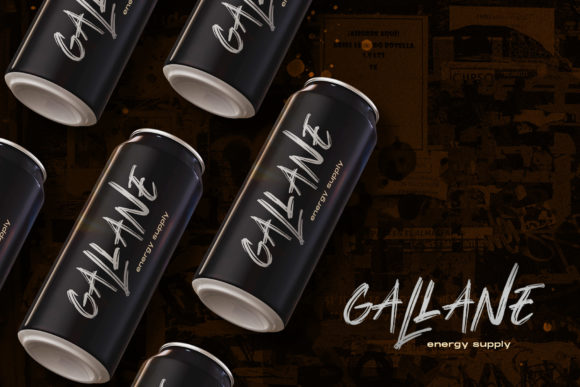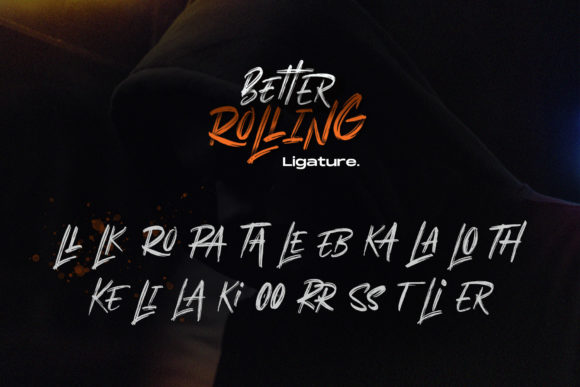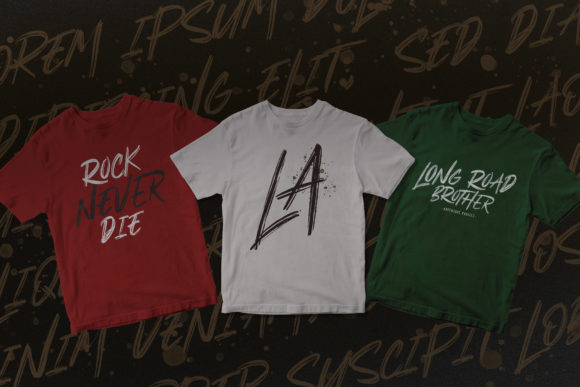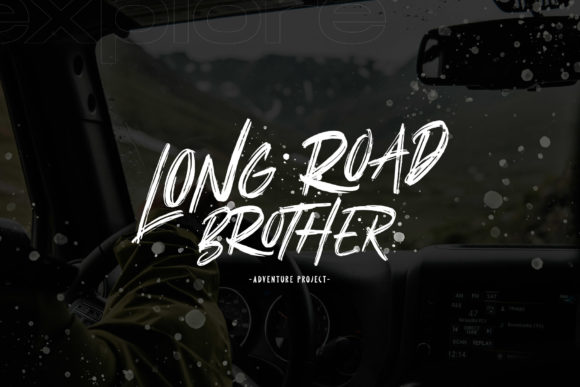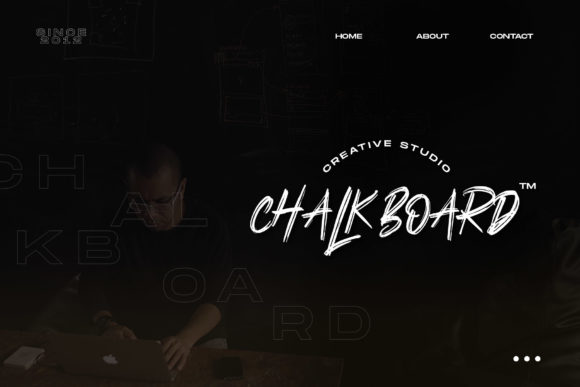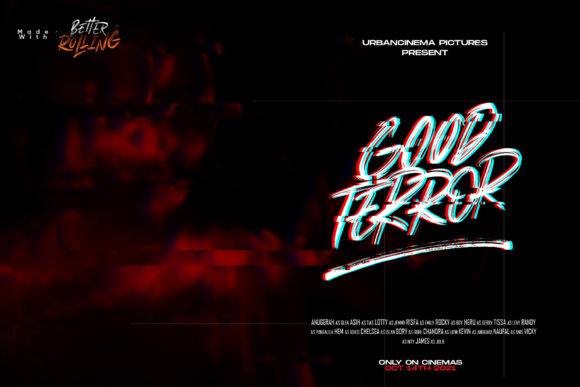
The Perfect Brushstroke for Your Next Design Project
Have you ever found yourself stuck in a creative rut, pouring over font options but struggling to find the perfect fit? You know the feeling – it’s like searching for a needle in a haystack, only to discover that the needle is actually a bunch of bland, generic fonts that fail to make a lasting impression.
That’s where the Better Rolling Font comes in – a stunning, bold script font that’s been hand-painted with a dry brush to give it a unique, textured look. This font is designed to add a strong and distinct vibe to any design, making it perfect for anything from logo designs to social media graphics.
As a designer, you know how much a great font can elevate a project and make it truly stand out. That’s why the Better Rolling Font is such a valuable addition to your toolkit – it’s a game-changer that will take your designs to the next level and leave a lasting impression on your audience.
Better Rolling Font Key Features
- Unique Character Set: Includes a wide range of characters, including accented letters, ligatures, and swashes, for added expressiveness and flair.
- Stylistic Alternates: Features a set of stylistic alternates that allow for subtle variations in letterform design, adding depth and interest to text.
Better Rolling Font Review
I recently had the chance to work with the Better Rolling Font, and I must say it’s an interesting addition to the world of typography. Here’s my honest take on its strengths and weaknesses.
- Unique Visuals: The rolling effect on the font is truly eye-catching and can add a fun, dynamic touch to any design.
- Highly Customizable: The font offers a wide range of options to adjust its behavior, from speed to direction, giving designers plenty of creative freedom.
- Good for Social Media: The font’s playful nature makes it perfect for social media graphics, animations, and other short-form content.
- Readability Issues: At times, the rolling effect can make the text difficult to read, especially for longer blocks of text.
- Technical Challenges: Integrating the font into certain design tools or frameworks can be a hassle due to compatibility issues.
Overall, I think the Better Rolling Font is a great choice for designers who want to add some whimsy and personality to their projects. However, it’s essential to weigh its limitations and consider the project’s requirements before using it. With some careful planning and execution, this font can be a real showstopper.
Tips for Getting the Most Out of Better Rolling Font
Use Better Rolling Font to add a touch of sophistication and elegance to your designs.
Experiment with different font sizes and colors to create a unique look.
Combine Better Rolling Font with other design elements to create a cohesive and visually appealing design.
Use Better Rolling Font for:
Product labels and packaging